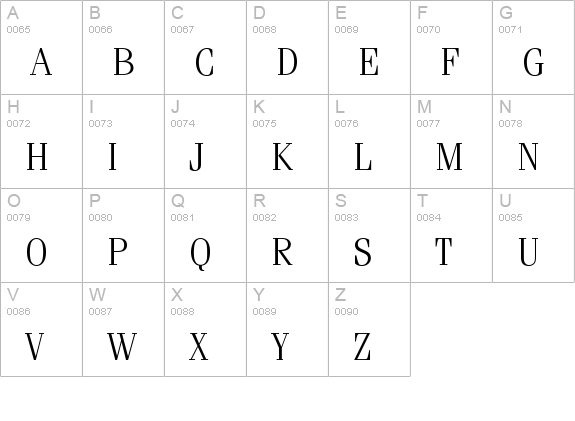
FeniceEF-Light Font Details
FeniceEF-Light is a refined, elegant variant in the FeniceEF typeface family \xE2\x80\x94 well suited to elegant body text, refined sub-headings, and luxury branding.
FeniceEF-Light is a modern and elegant typeface that exudes sophistication and style. With its clean lines and subtle curves, this font is perfect for adding a touch of class to any design project. Whether you're creating a business card, website, or logo, FeniceEF-Light will elevate your work to the next level. The best part? FeniceEF-Light is completely free to download at FontsMarket.com. You can easily access this stunning font and enhance your creative endeavors without any cost. Don't miss out on the opportunity to elevate your designs with FeniceEF-Light – download it now and see the difference it can make!